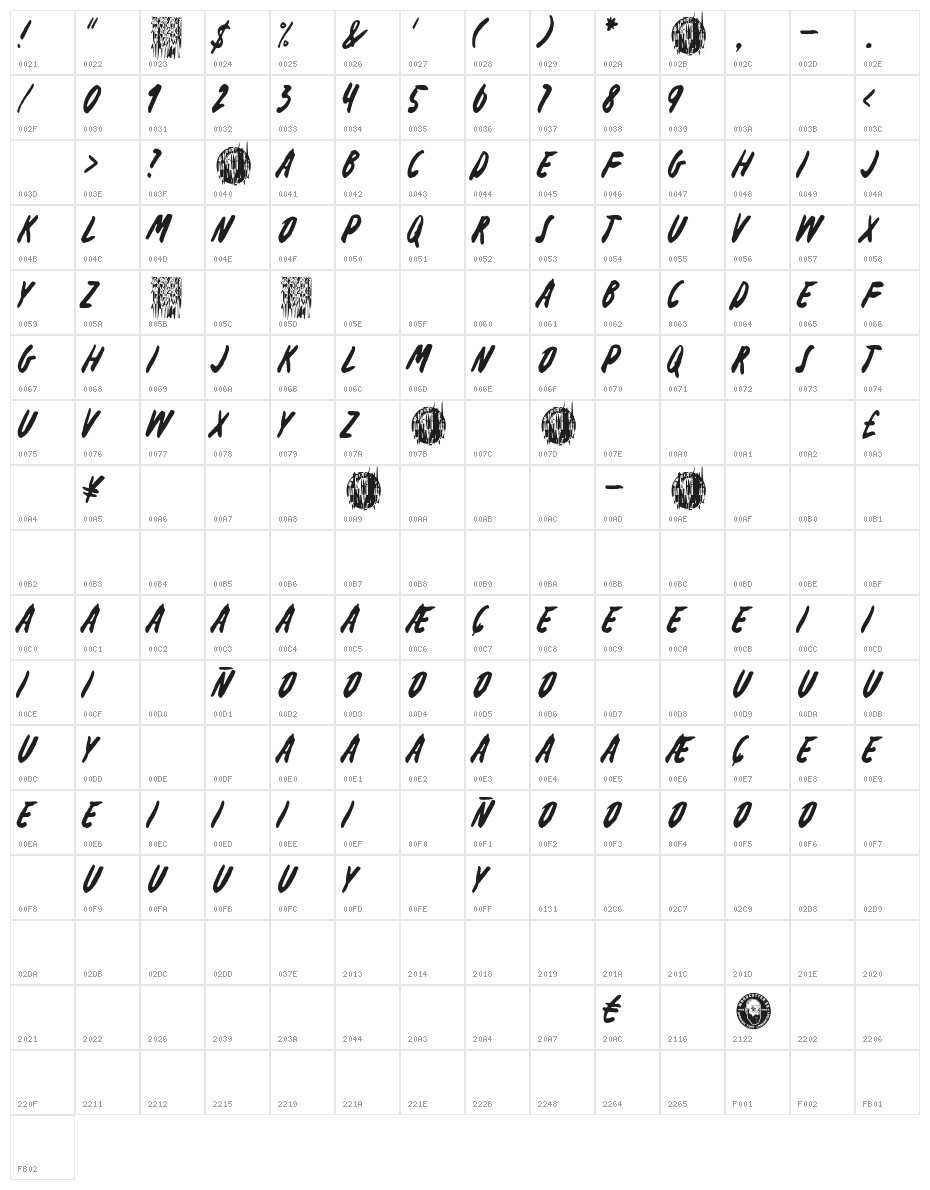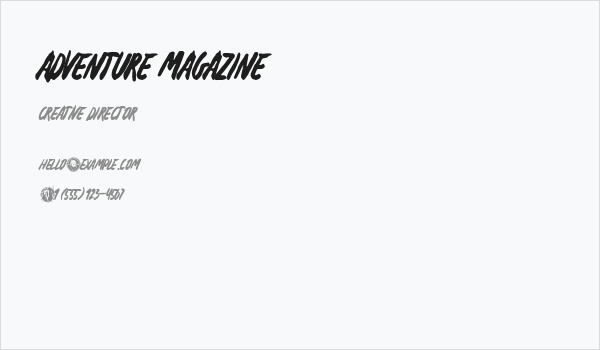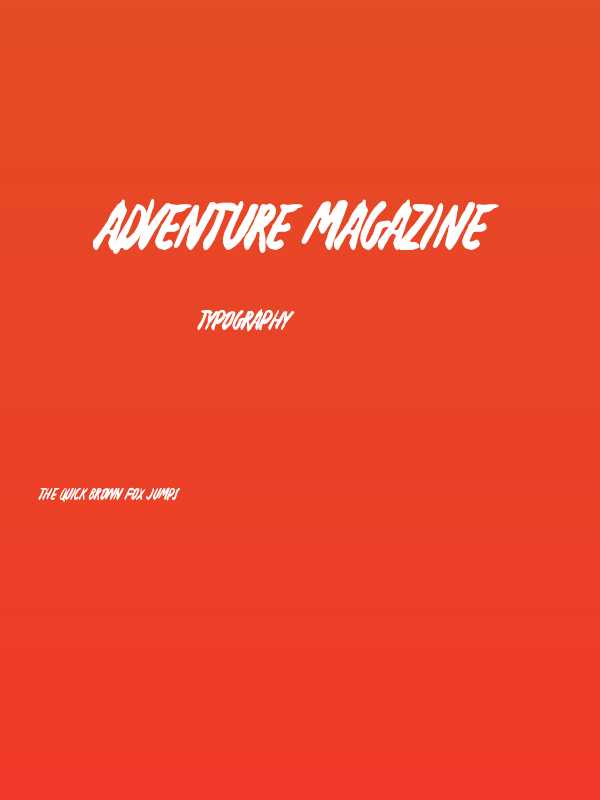
Adventure Magazine Font
Adventure Magazine Description
This font exudes a bold and adventurous spirit, characterized by its thick, brush-like strokes that convey a sense of movement and energy. The letters are slightly slanted, adding a dynamic and informal touch, while maintaining legibility. The uppercase and lowercase characters are consistent in style, with rounded edges and a hand-drawn appearance that suggests creativity and spontaneity. The numbers and special characters follow the same aesthetic, ensuring a cohesive look across all text elements. This font is ideal for projects that require a lively and engaging visual impact.
| Proposed Projects | Perfect for magazine covers, adventure-themed branding, posters, and creative advertising campaigns. |